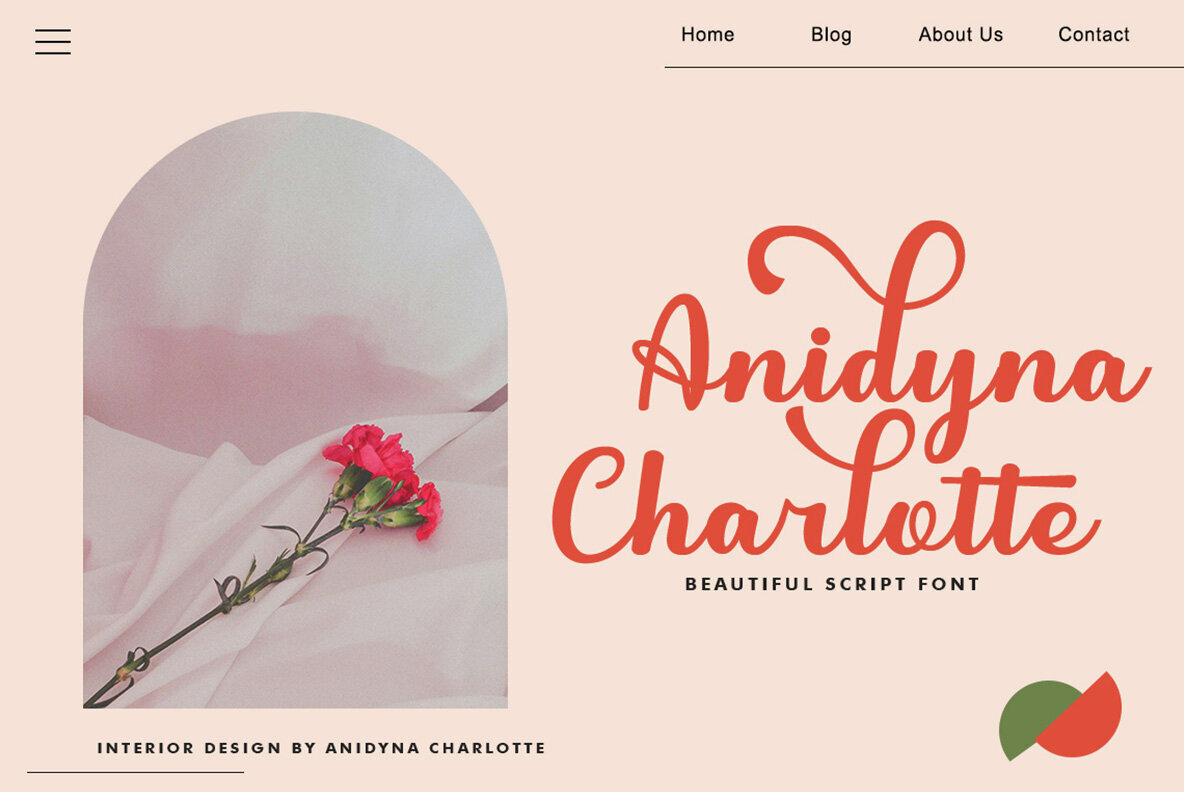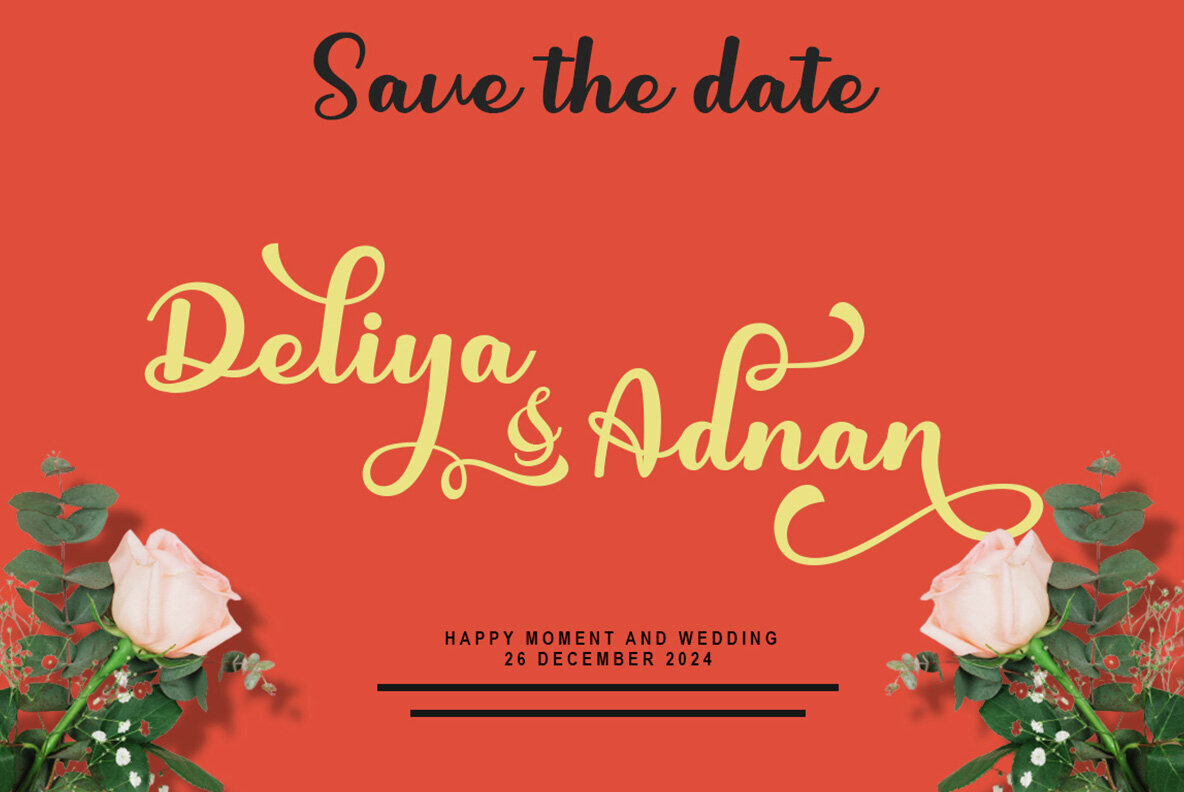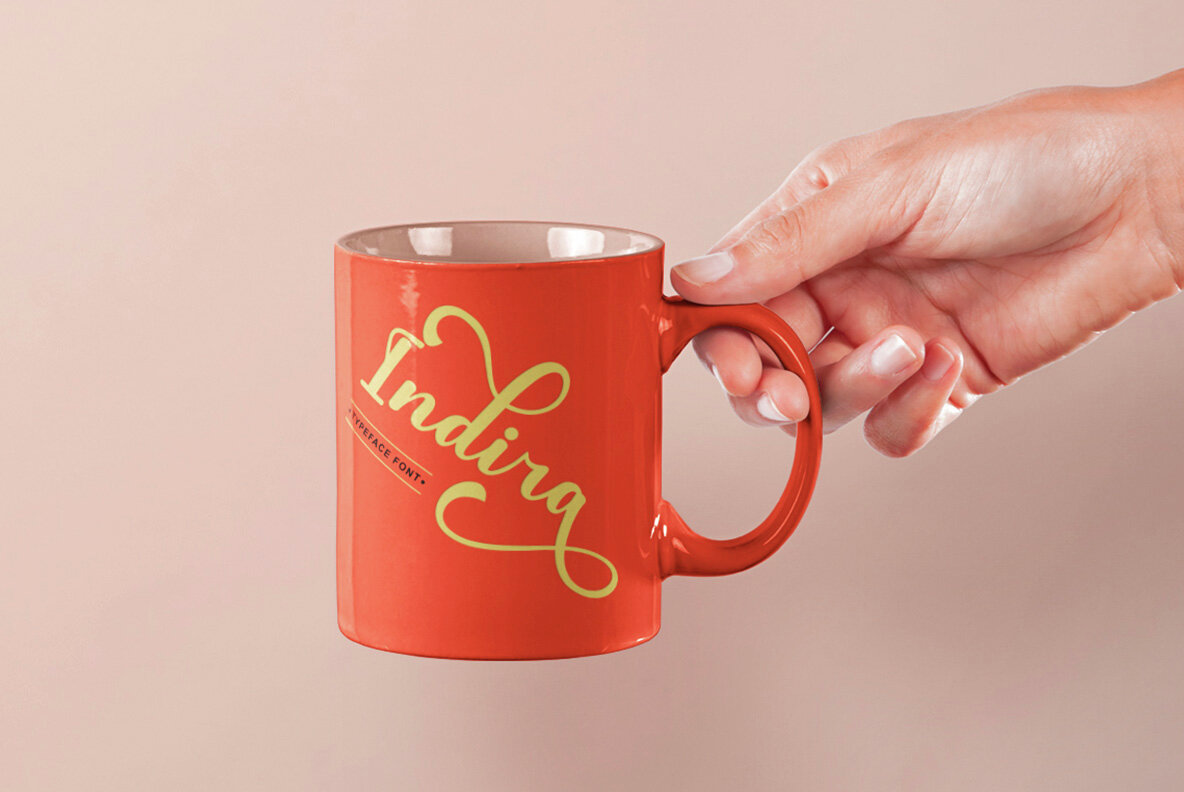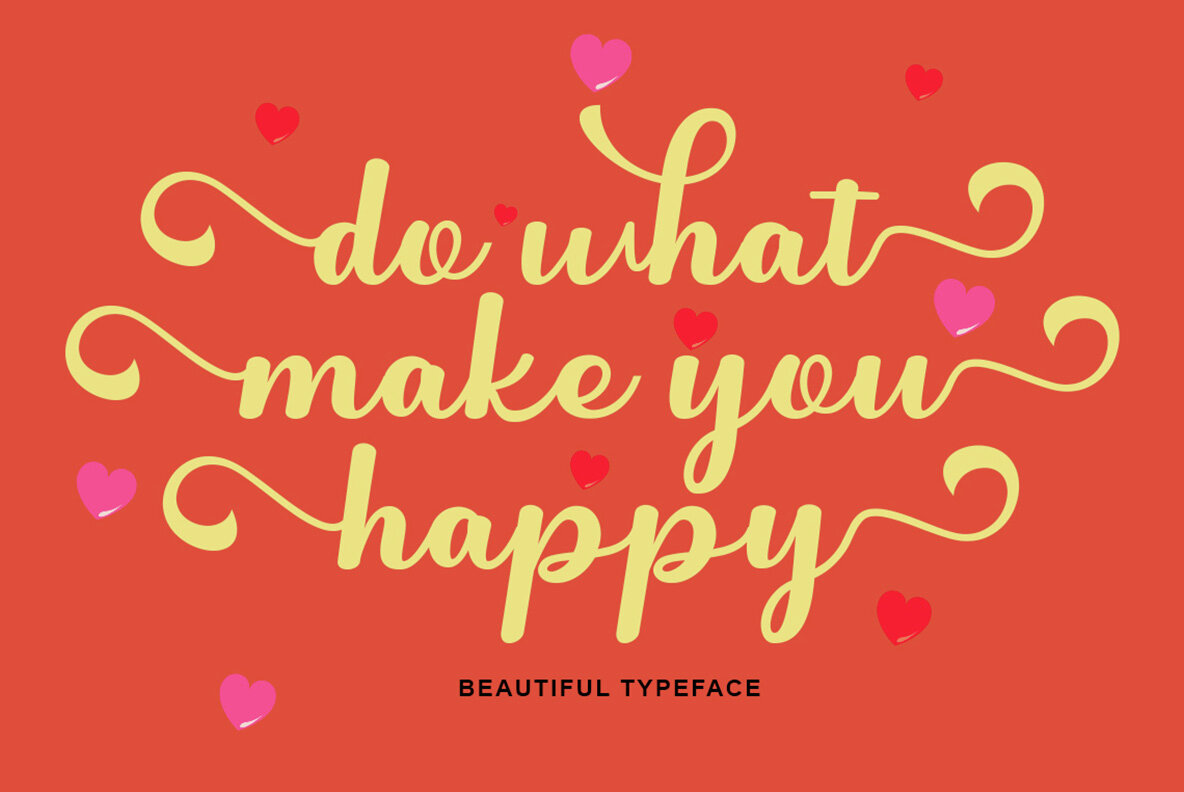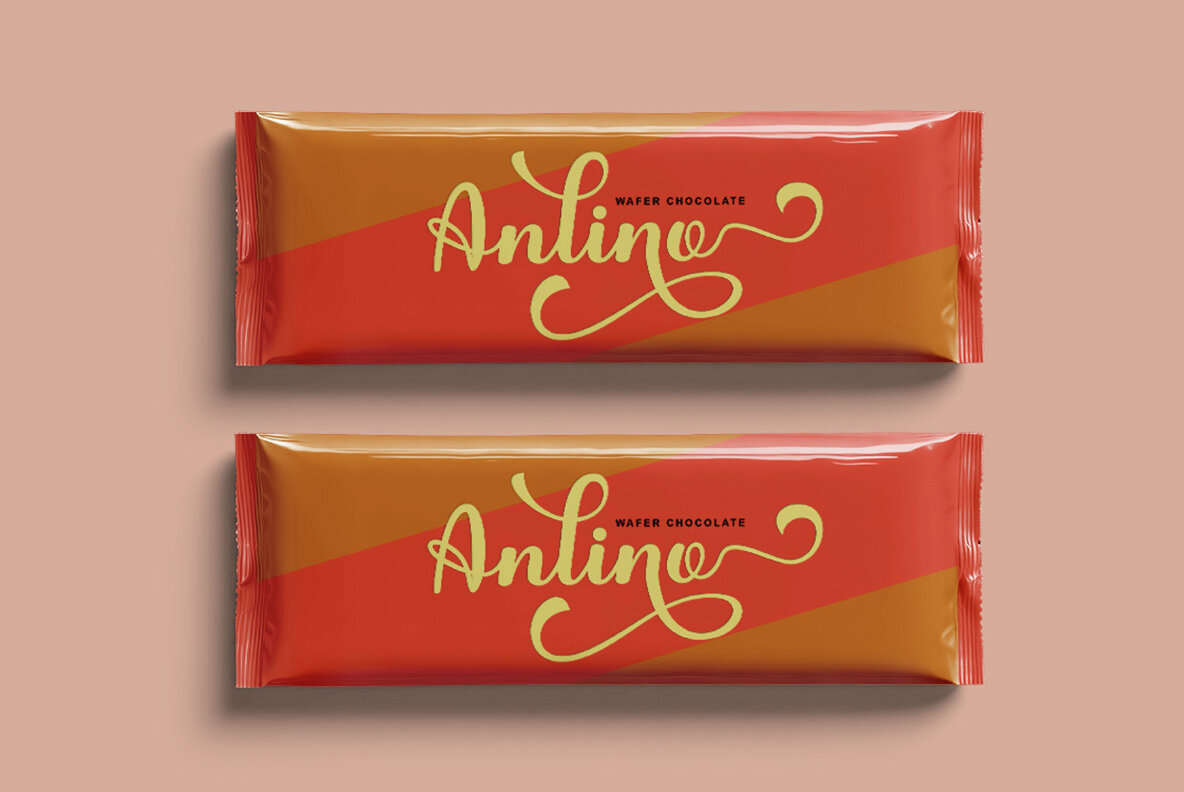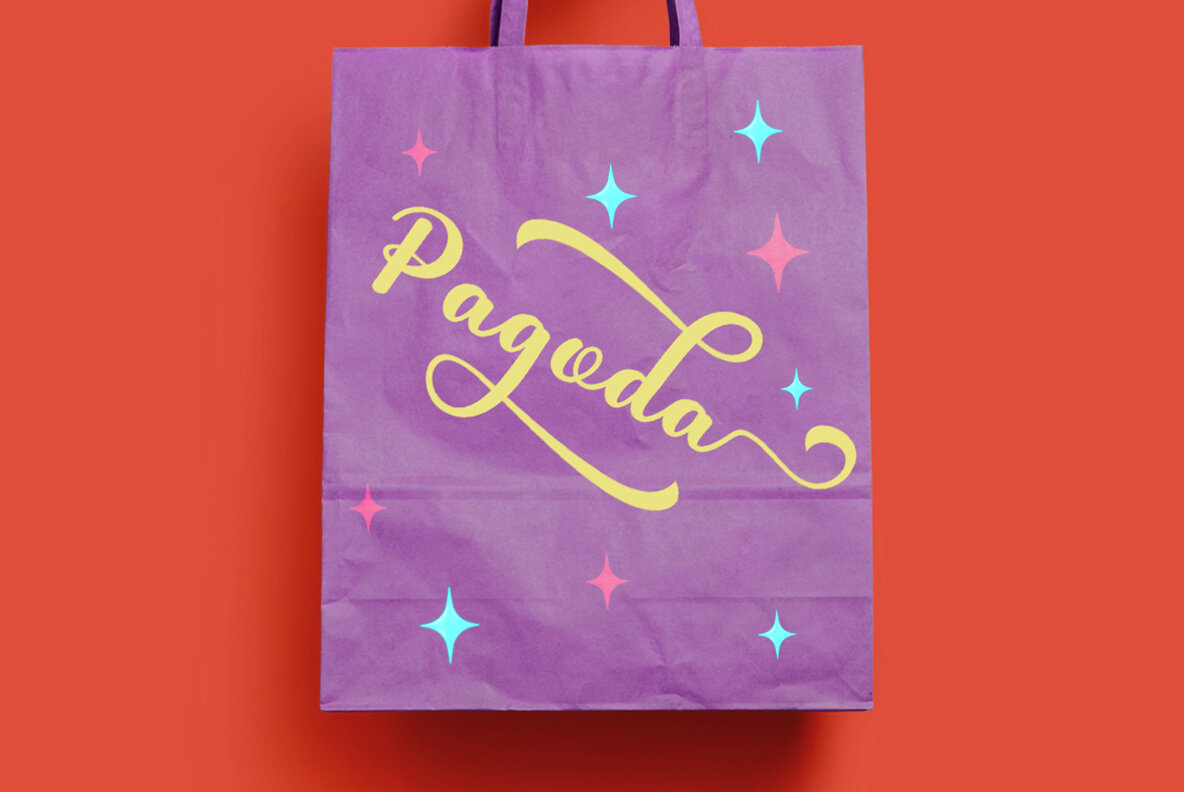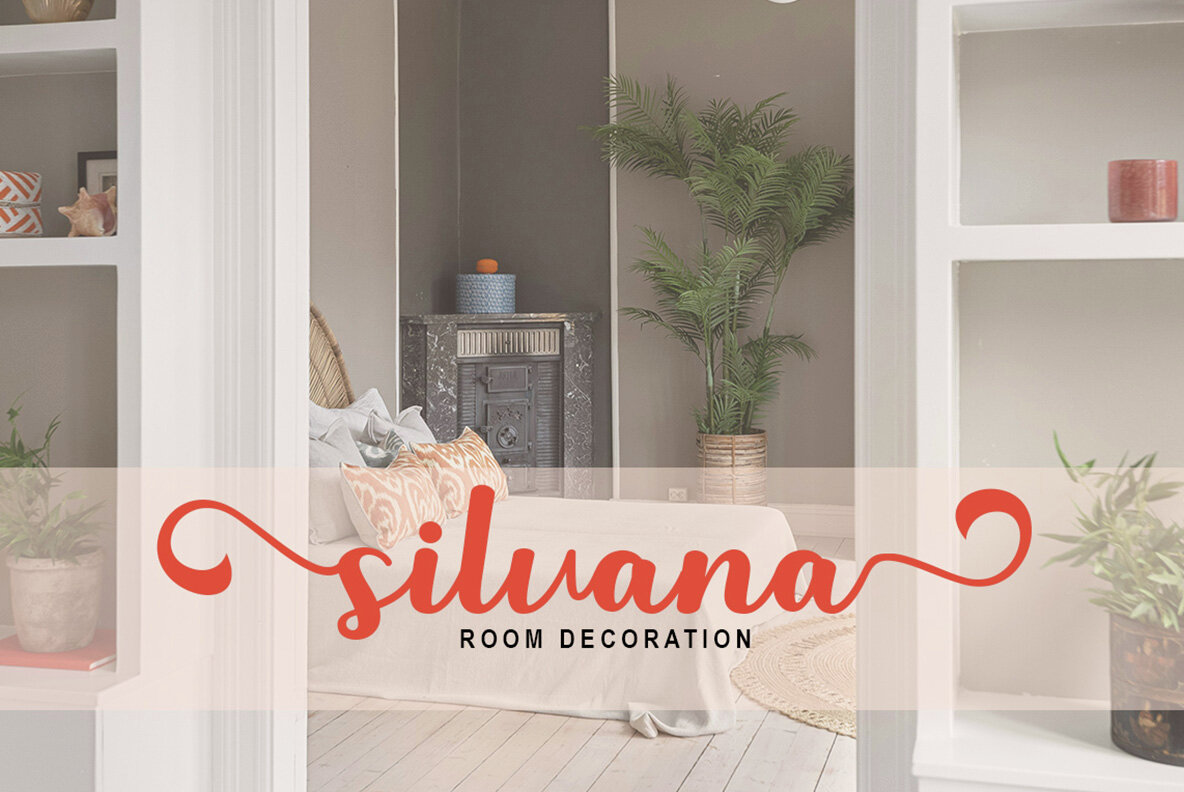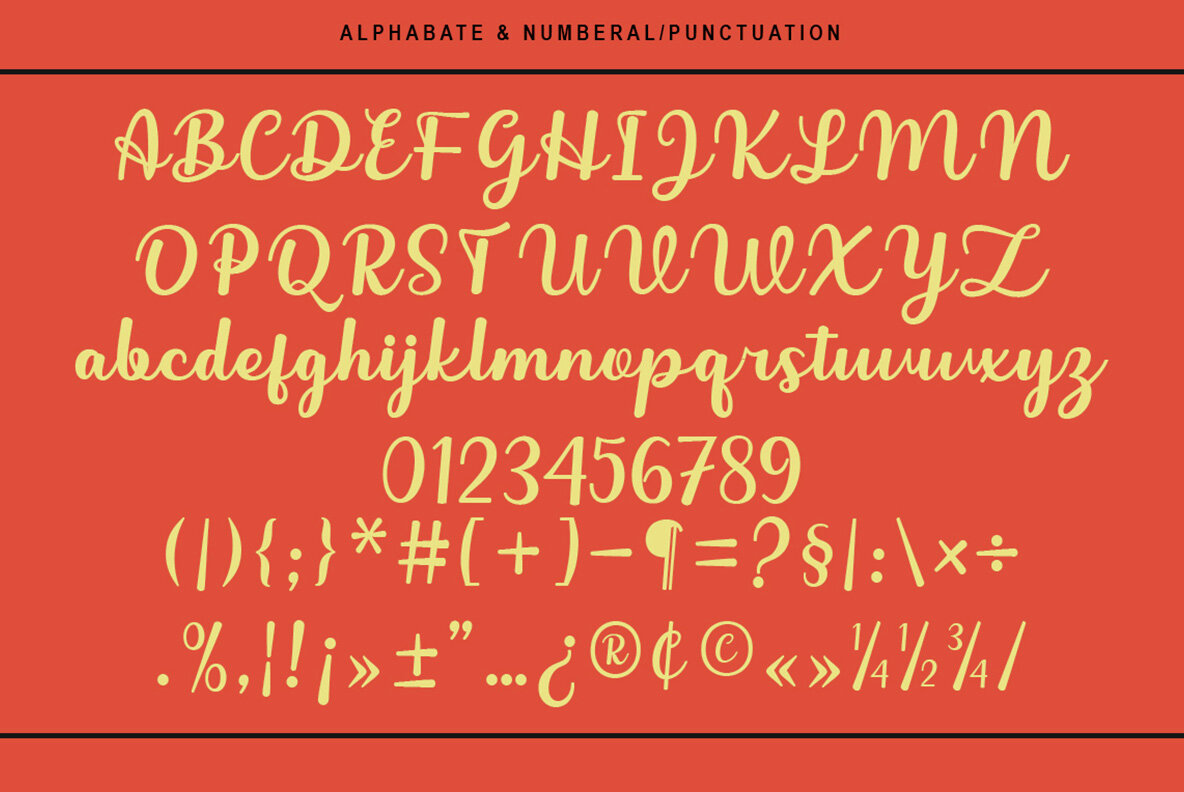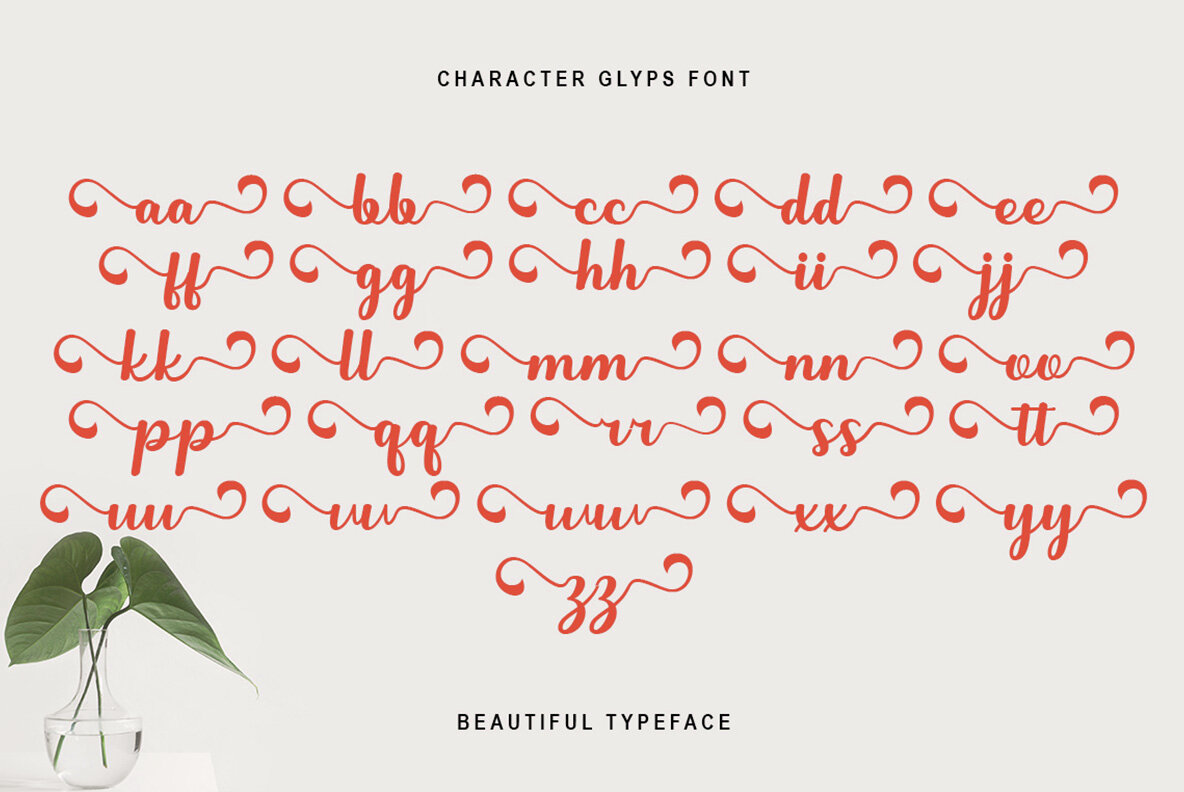
Angoline Font
Angoline Regular
Angoline is a script font that brings a soft and elegant handwritten style to your creative projects. Ideal for invitations, branding, and any design needing a personal touch, this font adds a unique flair to your work. Its natural strokes and refined curves make it versatile and suitable for a wide range of applications.
The Style Alternative Ligature feature in Angoline allows for unique combinations when the Standard Binding option is enabled in the Opentype panel of software like Adobe Photoshop and Adobe Illustrator. This functionality ensures that your designs maintain a cohesive and sophisticated look, enhancing the overall appeal of your project.